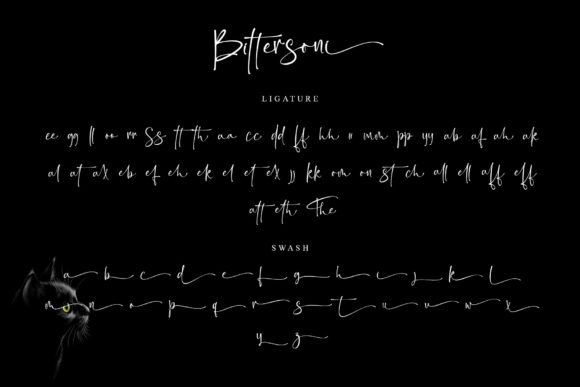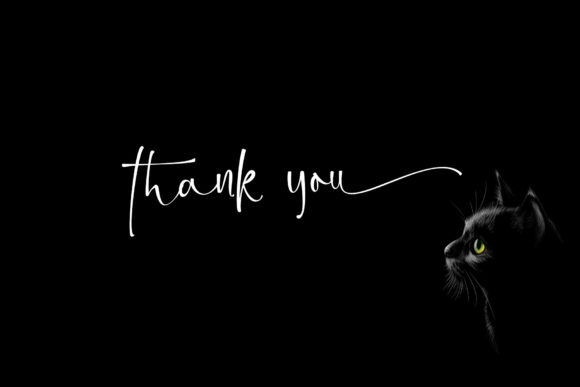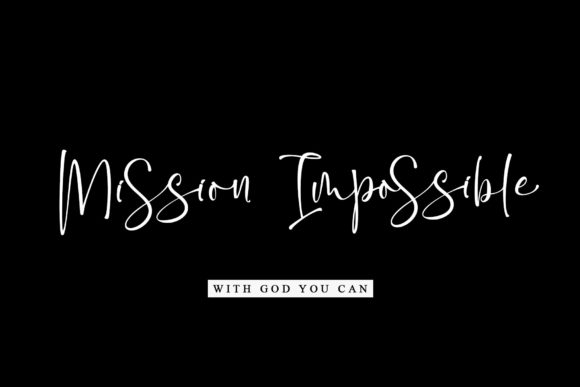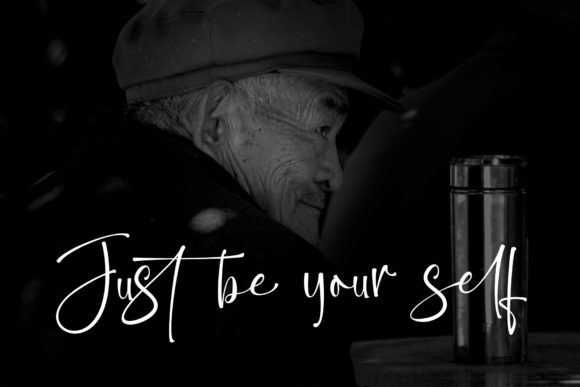
About Bittersoni Font
Bittersoni is a beautiful, well balanced and vintage styled script font. It is defined by smooth curves and is perfect for fashion branding or editorial designs. Bittersoni is PUA encoded which means you can access all of the glyphs and swashes with ease!Â